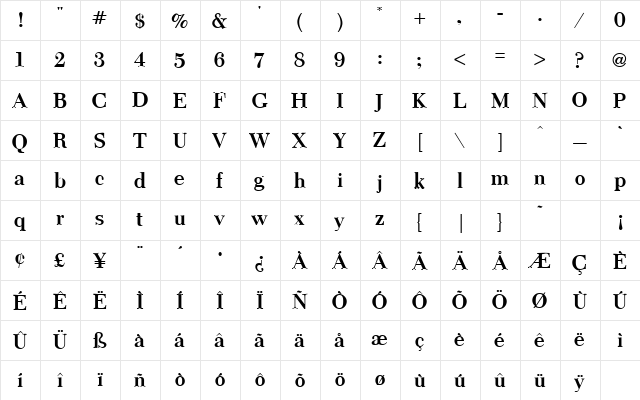
Thanksgiving Bold
Design Context for Thanksgiving Typeface
Thanksgiving takes a measured approach to typography — its balanced proportions and neutral character make it a reliable workhorse for both digital and print work. The heavy weight commands attention and anchors typographic hierarchies.